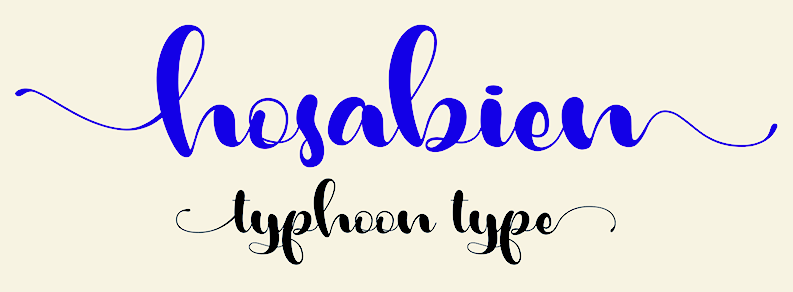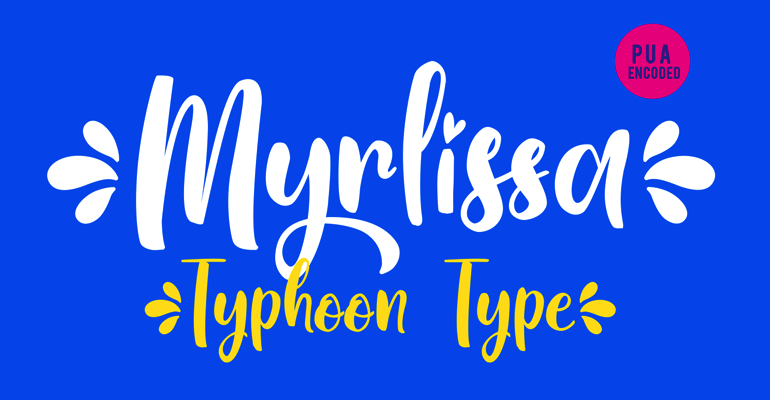
Typhoon Type [Suthi Srisopha]
Bangkok, Thailand-based designer (b. 1976) of the free brush script typeface Zomtam Thai (2017), and the script typefaces Amazing Kids (2017), Reality Sunday (2017), Lovely Home (2017), Journey to Thailand (2017), Midnight Bangkok (2017), Vacations in Phuket (2017) and Chiangmai Hostel (2017: formal calligraphic style).
Typefaces from 2018: Butterfly Kiss, Medusa Story, Weather Sunday, The Holiday (signage script), Sudsakorn, Siam Giants, Black Melody, Cheetah Kick, Jestho Fisher, Kansha, Sawasdee, Hosabien, Yakuza Lobster (brush script), Lonely Basket, Indigo Daisy, Antishbusy, Skating Move, Kindly Jasmine, White Mackintosh, Joker Smiling, Umbrella Market, Double Jacket (a creamy script), Candle Mustard, Pacific Again, Plastic Beauty, Schoolkid, Beach Society, Earth Quest, Slow Life, Tale of Hawks, Broken Heart, Dancing Marker, Awesome Birds, Follow Me, Inkland, Moving Skate, Sexy Queen (script), Black Party, Easy November, Sweet Hipster, On The Rings, The West Gate, Indy Women.
Typefaces from 2019: Vesta Night, East Octopus, Vicky Cinthia, Xanthousy, Christmas Ribby, Reindeer Christmas, Mocking Bird, Jazzy Raptor, Antique Cherry, Real Gipsy, Likely Kitty, Silent Asia, Donkey Talk, Mother Batik, Beefy Soup, Lemon Brush, Ants Valley, Blisk Rhythm, Chocolate Kids (inline script), Salmon White, King Lionel, Coaster Quake, Billion Calligraphy, Hallo Oyster, Red Lipstick, Navy Ballad, Osaka Mustache, Rhinos Land, Ole Blizzard (signage script), Zebra Advert, Getsu Magic, Atomic Robusta, Gook Kitt (dry brush script), Handsome Boss, Durian Lovers, Qwerty Ability, Absolute Pink, Sixth Babylon, Yeah Violette (brush script), Newest Oldest, Fiesta Kids, Baking Lion, Rainbow Dreams, December Pastel, Macho Barista, Victory Racket, High Destiny, March Lovers (script).
Typefaces from 2020: Manila Kiss, Snowy Christmas, Christmas Bell, Kind and Rich, Sushi King, Monicha (a nice inline typeface), Crowny, Feathery, Blue Eyes, Pink Diary (a pink panther script), Rathouly (calligraphic script), Phiscilla, Cutie Cupid, All The Roll, Yellow Rabbit, Play Day, Jacky Shake, Quark Cheese, Ivory Chill, Monkey Act, Delan Gray, Harytian, Kashmir Rosy, Seaside Wave, Aloha Friday (signage script), Say Mooky, Super Yeasty, Handy Ink.
Typefaces from 2021: Milla Cilla (script), Rose Cake, Suki Yaki, Piasley, Fat Inlove, Myrlissa.